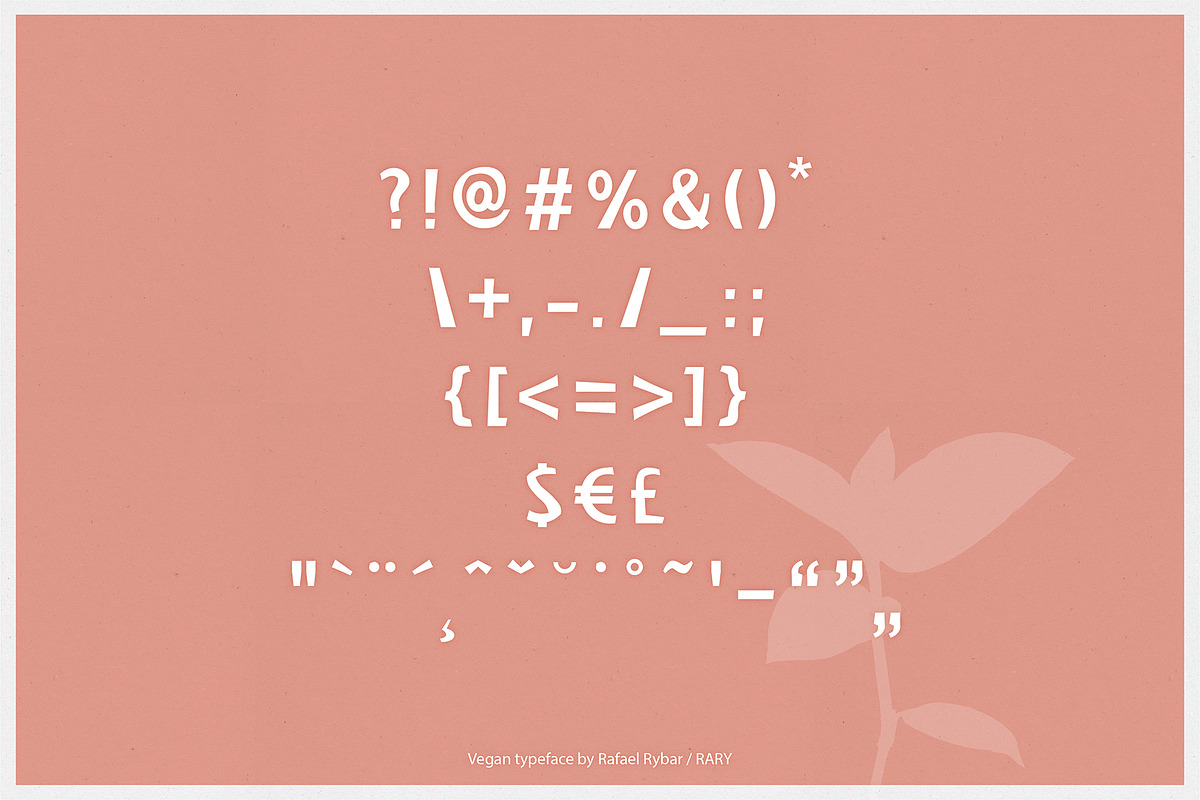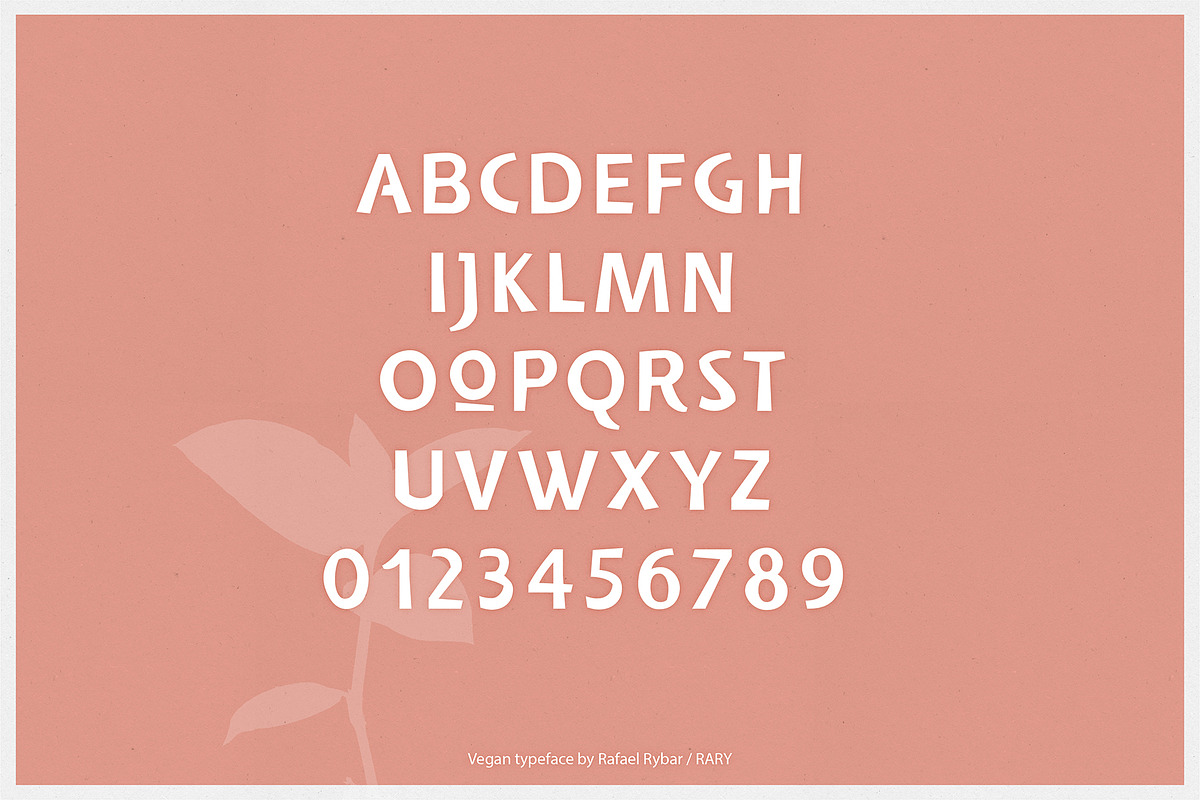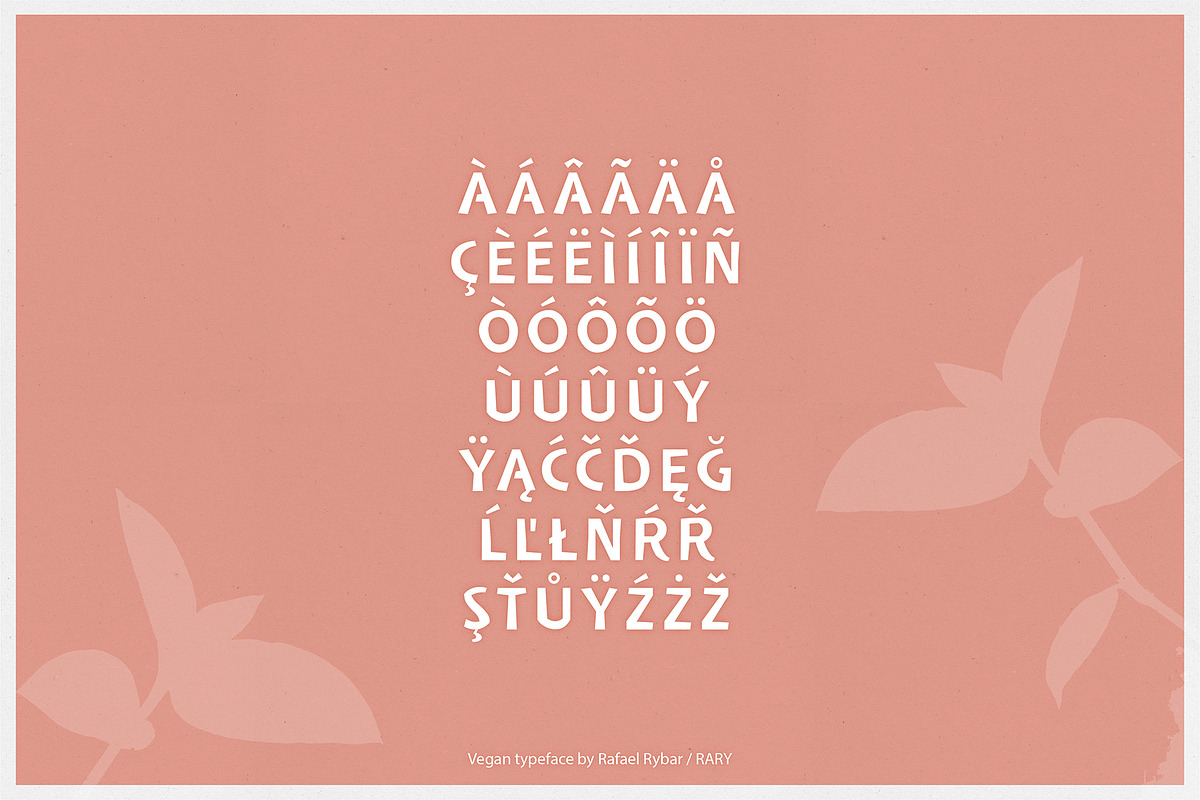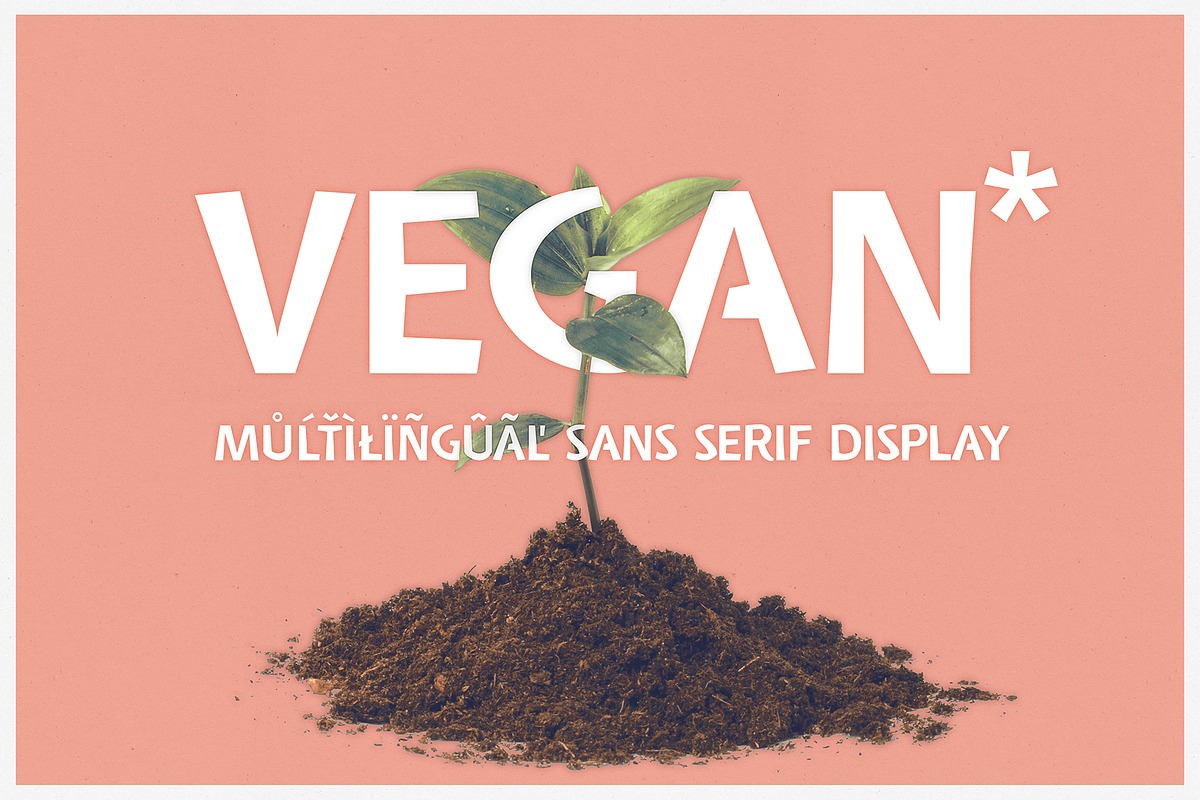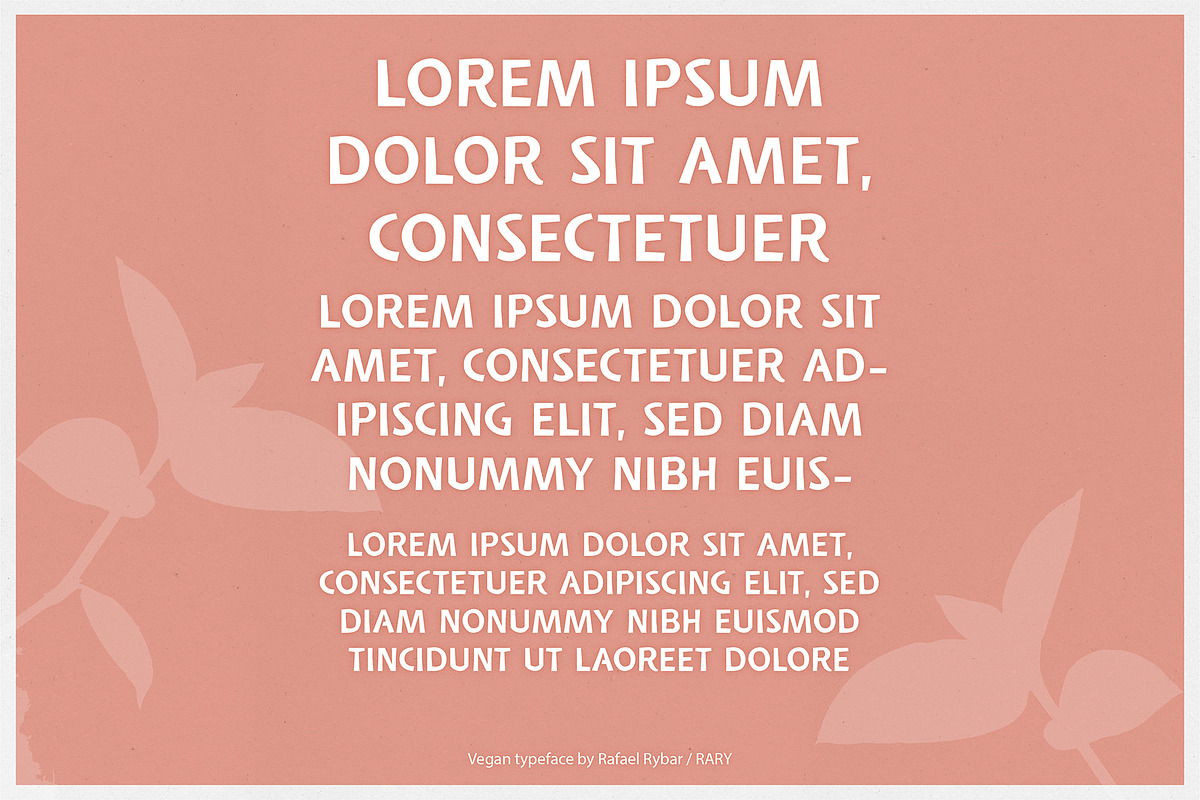
Vegan | sans serif display font
Vegan is a handmade playful fancy font in semibold style for long or short heading. It is also suitable for short texts. It has a naive crafty feel and stable cut contour. Can act even childish in certain compositions.